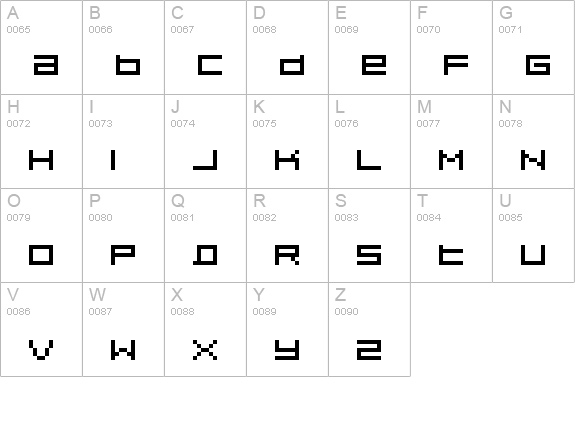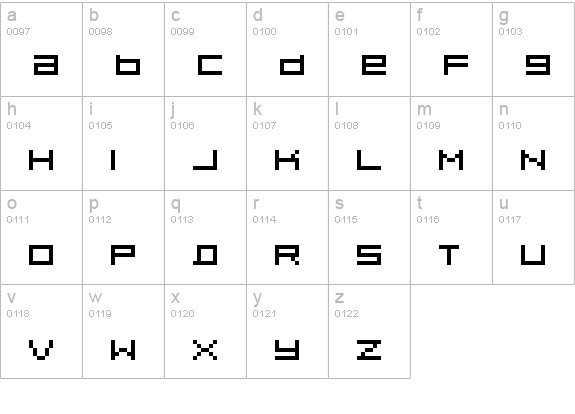
Pixeldust Expanded Font Details
Pixeldust Expanded is a distinctive, extended-width variant in the Pixeldust typeface family \xE2\x80\x94 well suited to design and typography projects.
Pixeldust Expanded is a captivating and versatile font that will ignite your creative projects with its bold and dynamic presence. This font, with its expanded letterforms, exudes a sense of energy and modernity that will instantly captivate your audience. Whether you are designing a striking poster, crafting an eye-catching logo, or creating a visually stunning website, Pixeldust Expanded will elevate your work to new heights. With its meticulously crafted design, Pixeldust Expanded effortlessly combines the elegance of sleek lines with the edginess of pixelated letterforms. The result is a font that is both modern and nostalgic, appealing to those who seek a fresh take on classic typography. One of the most remarkable aspects of Pixeldust Expanded is that it is freely available to download at FontsMarket.com. This means that you can access this exceptional font without any cost, allowing you to enhance your designs without breaking the bank. Whether you are a professional designer or a hobbyist, Pixeldust Expanded offers you the opportunity to explore your creativity without limitations. The versatility of Pixeldust Expanded is truly unparalleled. Its strong presence makes it ideal for headlines and titles, while its legibility ensures that it remains readable even at smaller sizes. This font is also perfect for branding projects, as it adds a contemporary touch to any logo or visual identity. Furthermore, Pixeldust Expanded boasts a wide range of characters and glyphs, allowing you to express yourself in various languages and symbols. This font supports multiple languages, ensuring that you can communicate your message effectively, no matter the audience. In conclusion, Pixeldust Expanded is a must-have font for anyone seeking to add a touch of modernity and creativity to their designs. Its bold and dynamic letterforms, combined with its availability as a free download at FontsMarket.com, make it an invaluable resource for designers of all levels. Don't miss the opportunity to elevate your projects with the captivating presence of Pixeldust Expanded.